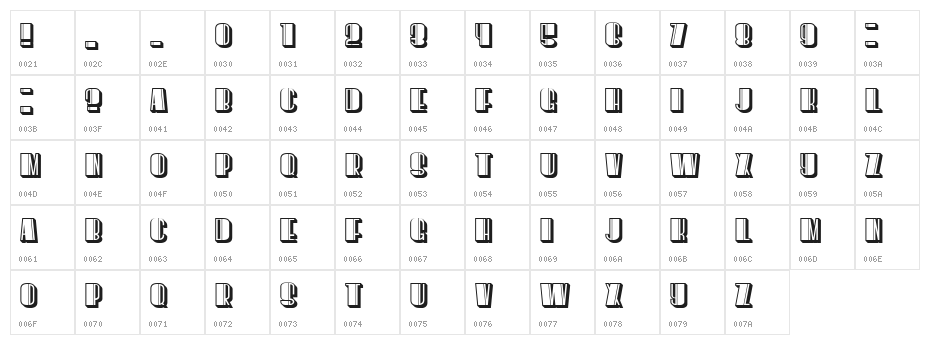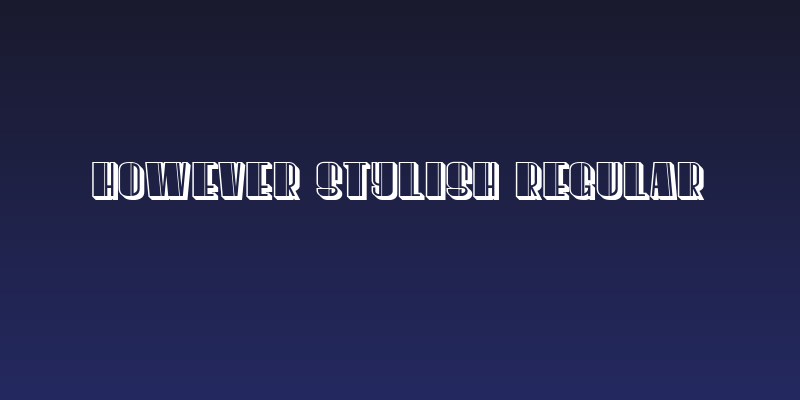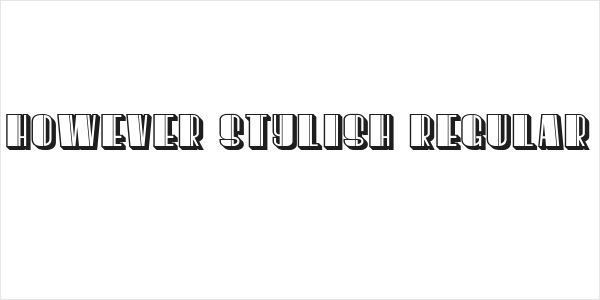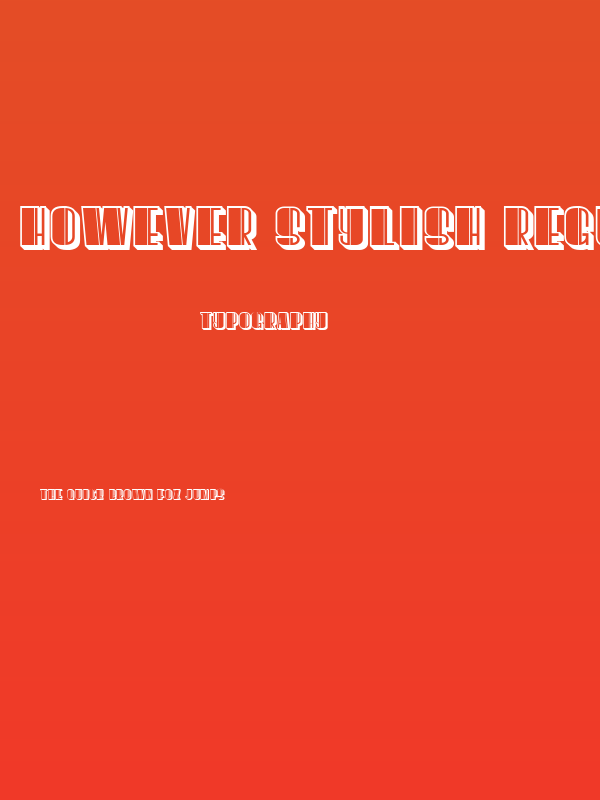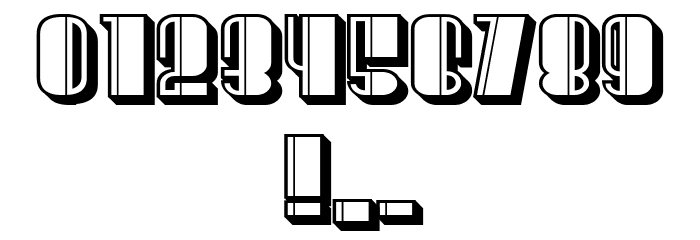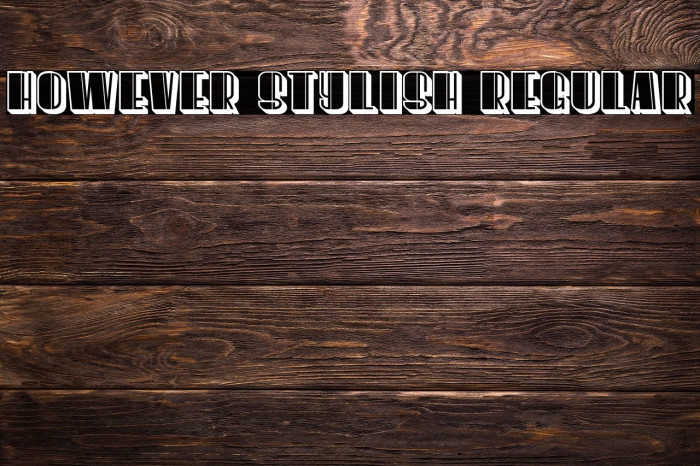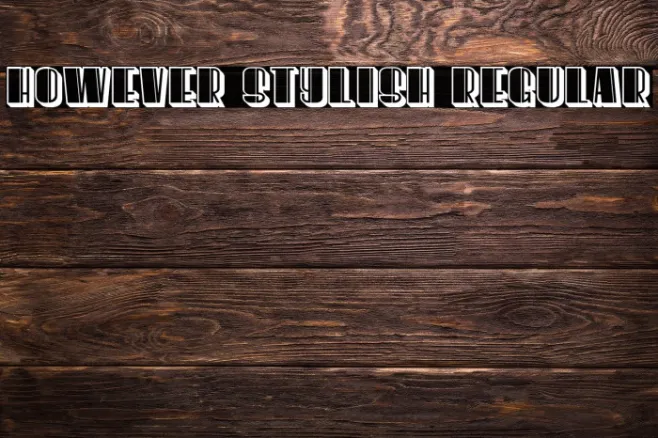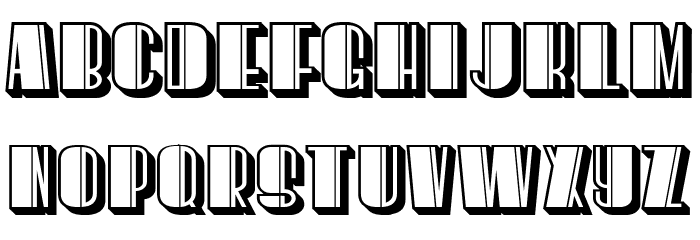
However Stylish Regular Font
However Stylish Regular Description
This font features a bold, three-dimensional style with a strong shadow effect, giving each character a sense of depth and prominence. The uppercase letters are designed with a blocky, geometric structure, while the lowercase letters maintain a consistent style, ensuring readability. The numerals and special characters follow the same bold and shadowed design, making them stand out. This font's unique style is both eye-catching and versatile, suitable for a variety of creative applications.
| Proposed Projects | Ideal for poster designs, headlines, logos, and any project requiring a bold, standout typeface. |